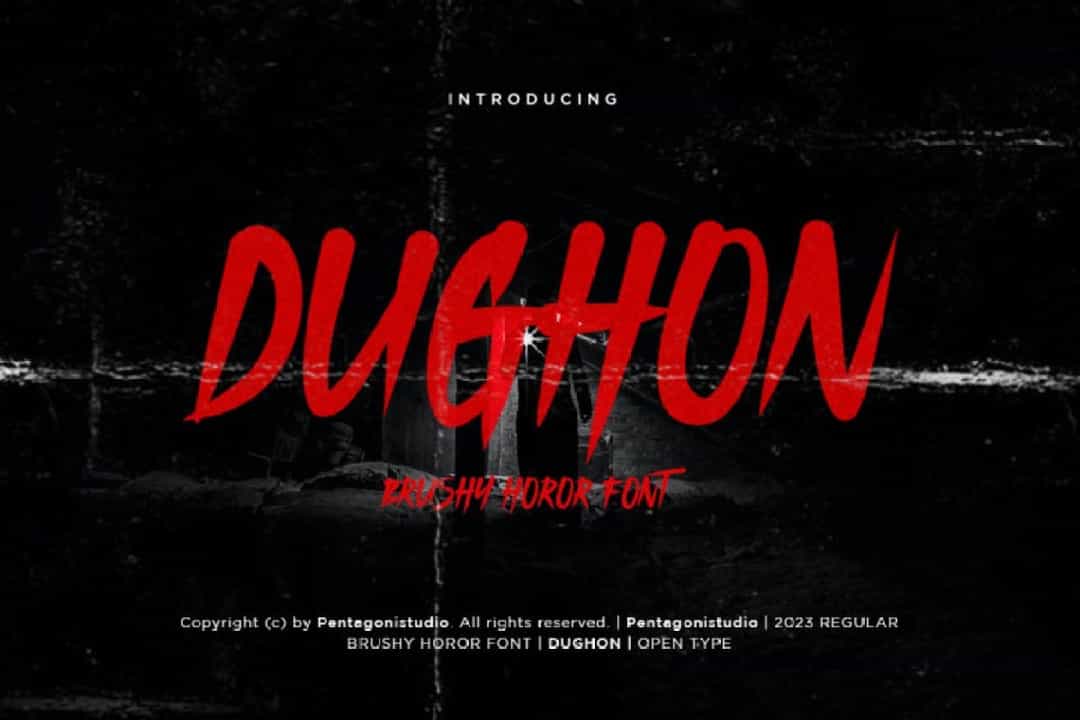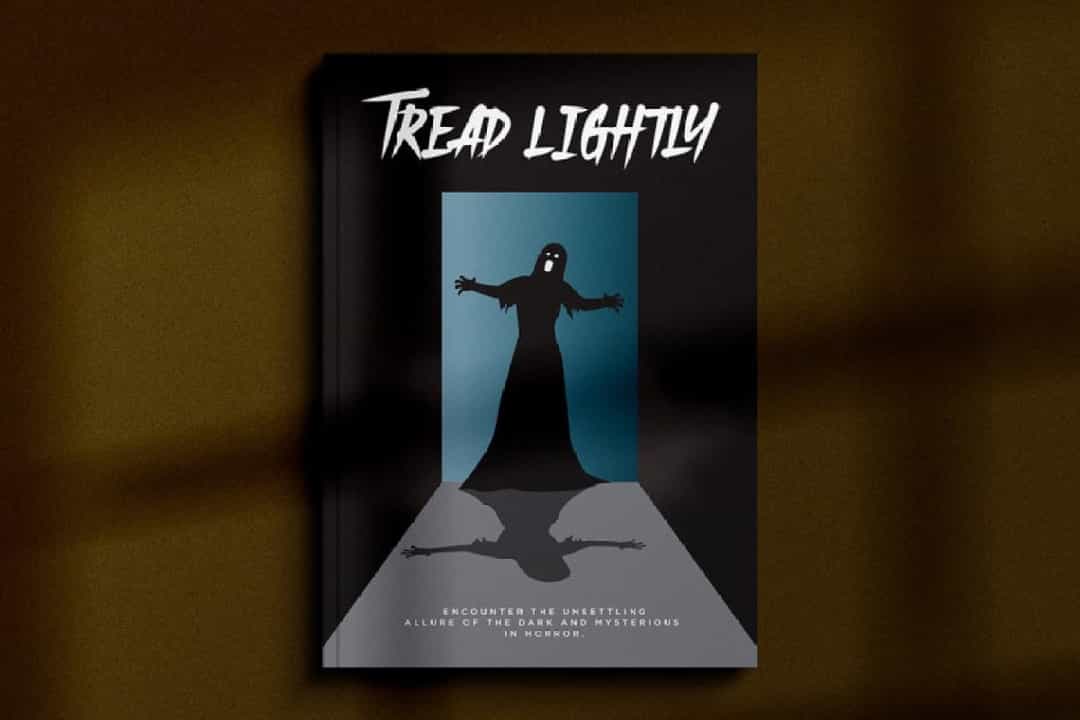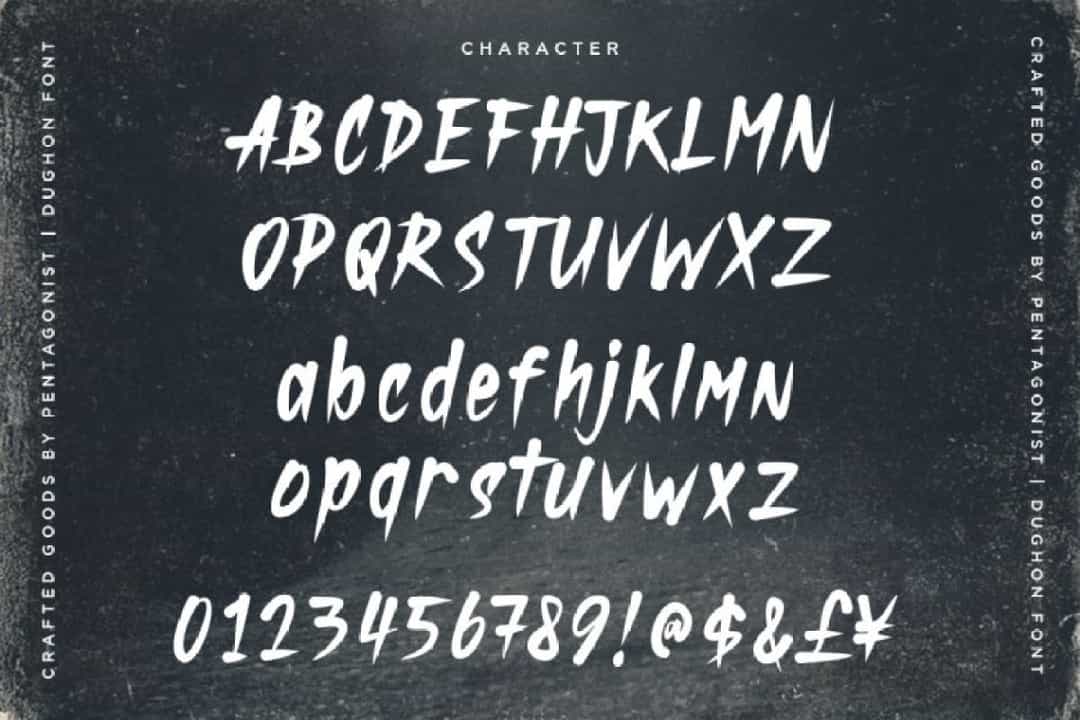
Dughon Font is an extremely attractive Halloween Brush Font designed by horror and trash styles, creating an intimidating but minimal brushstroke effect with letters that evoke horror themes for invitations, postcards, posters and headings for Halloween events and parties. Dughon can be utilized in any setting or setting for Halloween events and can create the right ambience!